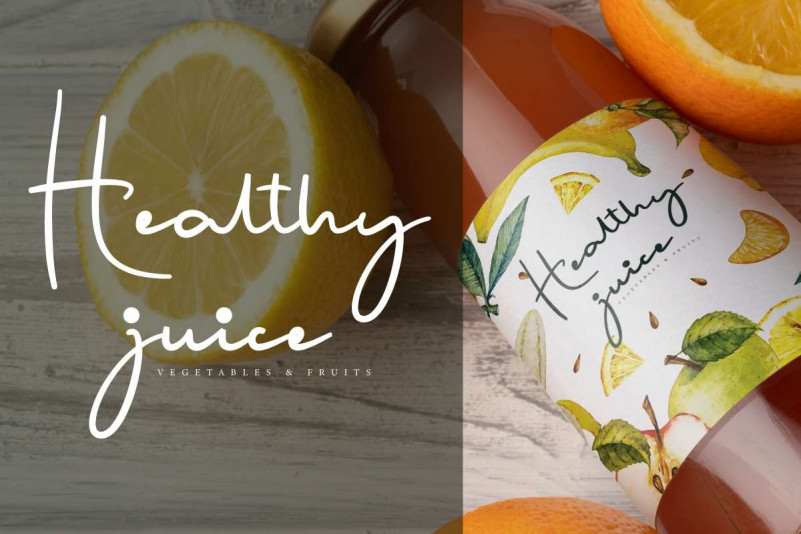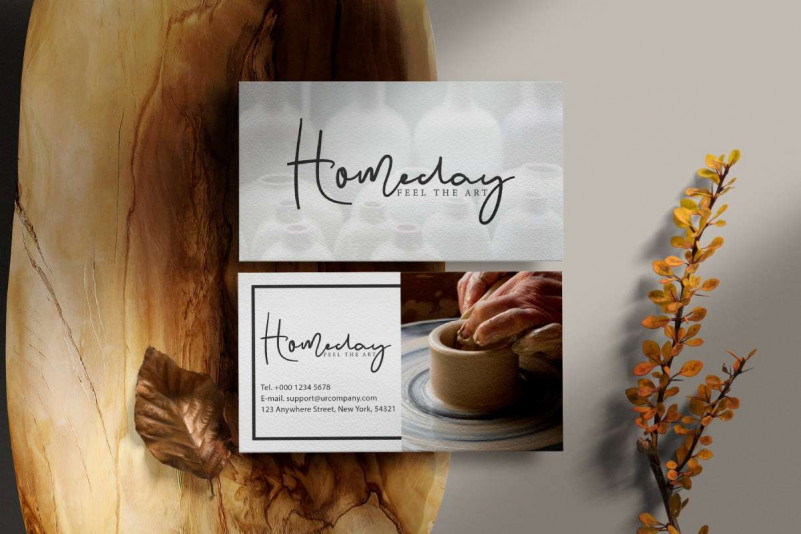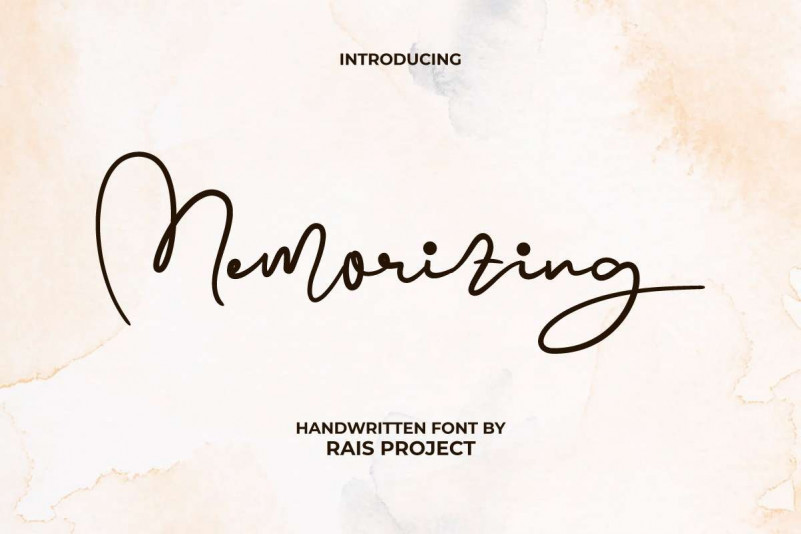
Memorizing Font
Memorizing Script Font is a stylish script font with handwriting style. The style shown in this font has beautiful lines that will remind you of writing in a diary! Use this font to enhance your projects, such as book notes, business card, invitation, label, packaging design, quotes, screen printing, signage, stationery, title, website, etc.
Memorizing Font includes a full set of Uppercase and Lowercase Letters, Numerals, and large range of punctuation. This font also features some Alternate and Ligature characters to add aesthetics to any project you create. This font has an attractive appearance making it suitable for many industries, such as author, event, fashion, handicrafts, photography, printing, publishing, salon, wedding, writer, and more!